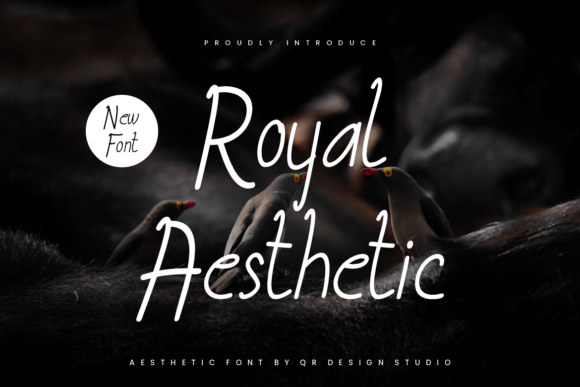
Introducing Royal Aesthetic Font, the best font for your holiday card creations! This sweet and friendly handwritten font is here to elevate your designs and add a touch of elegance. Created by qrdesignstd, Royal Aesthetic is a true gem that will captivate your audience and leave a lasting impression.
With its natural and unique style, Royal Aesthetic Font brings a sense of warmth and charm to any project. Its graceful curves and elegant strokes create a beautiful handwritten look that is both inviting and mesmerizing. Say goodbye to boring and generic fonts, and welcome a font that truly stands out!
Whether you're designing holiday cards, wedding invitations, or even social media graphics, Royal Aesthetic Font is a versatile choice that will never disappoint. It effortlessly blends in with any theme or style, allowing you to unleash your creativity without limitations. Let your imagination run wild and watch as your designs come to life!
But what sets Royal Aesthetic Font apart from the rest? Its impeccable attention to detail and carefully crafted characters make it a true work of art. Each letter is meticulously designed to ensure readability and legibility, even at smaller sizes. Your message will be clear and impactful, leaving no room for confusion.
Not only does Royal Aesthetic Font look stunning, but it also evokes a range of emotions. Its mesmerizing beauty creates a sense of joy, excitement, and nostalgia. Your audience won't be able to resist the charm and elegance it exudes. From the moment they lay eyes on your design, they will be captivated and drawn in.
In conclusion, Royal Aesthetic Font is the perfect choice for anyone looking to create captivating holiday cards. Its sweet and friendly style, combined with its versatility and emotional impact, make it a must-have for designers of all levels. Step into a world of elegance, creativity, and endless possibilities with Royal Aesthetic Font.